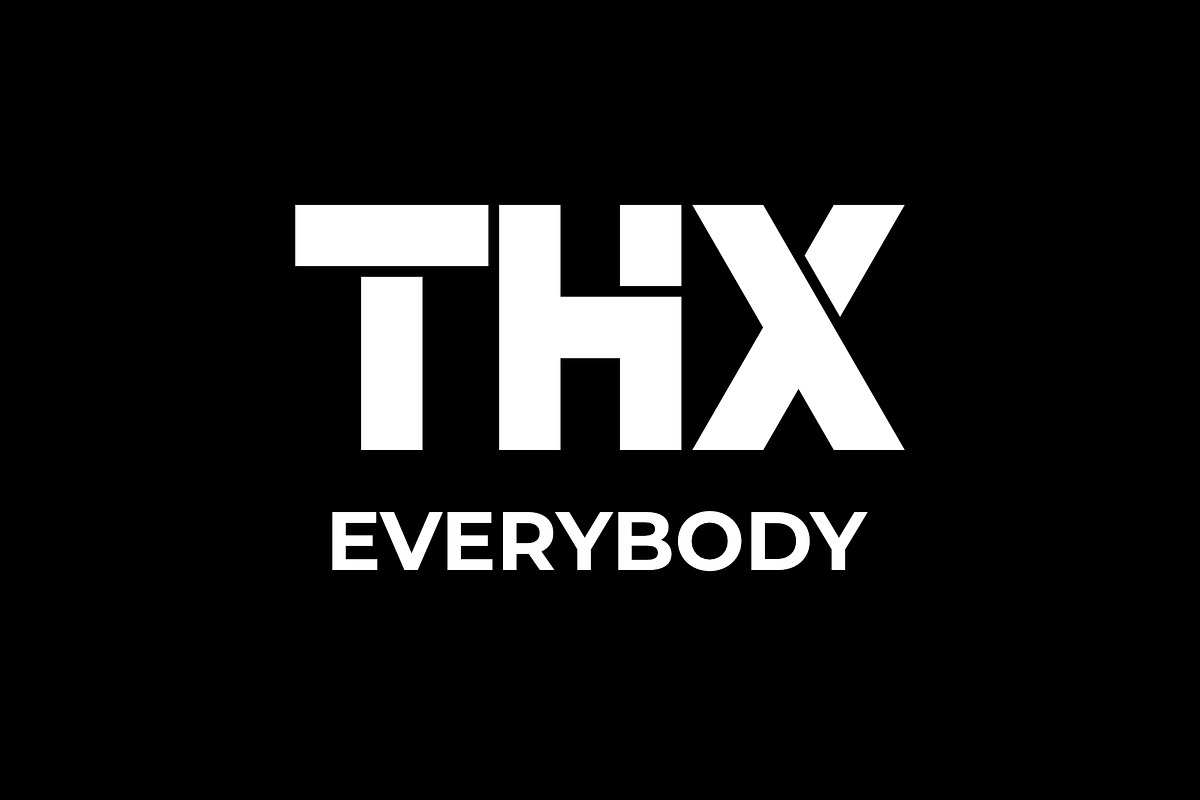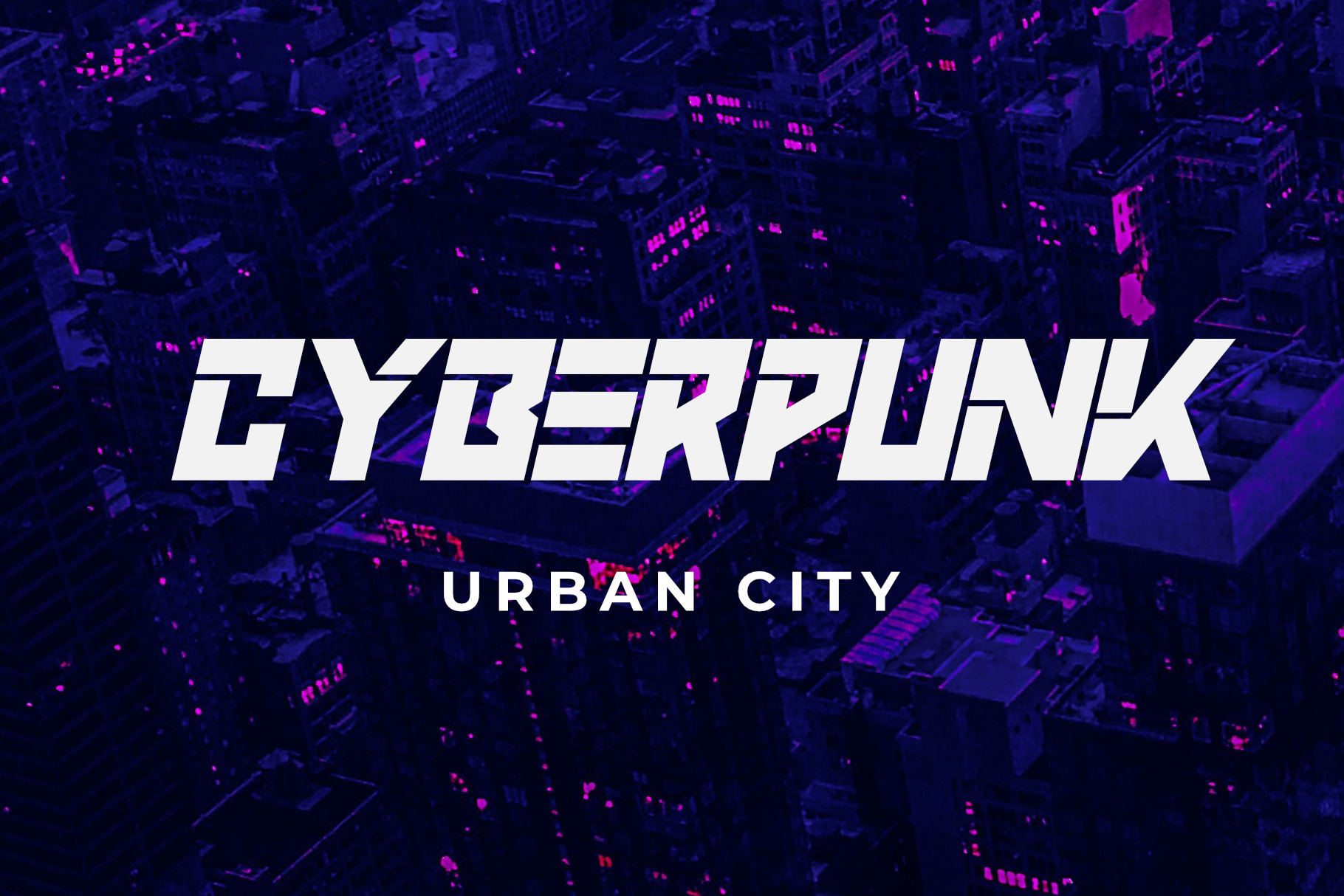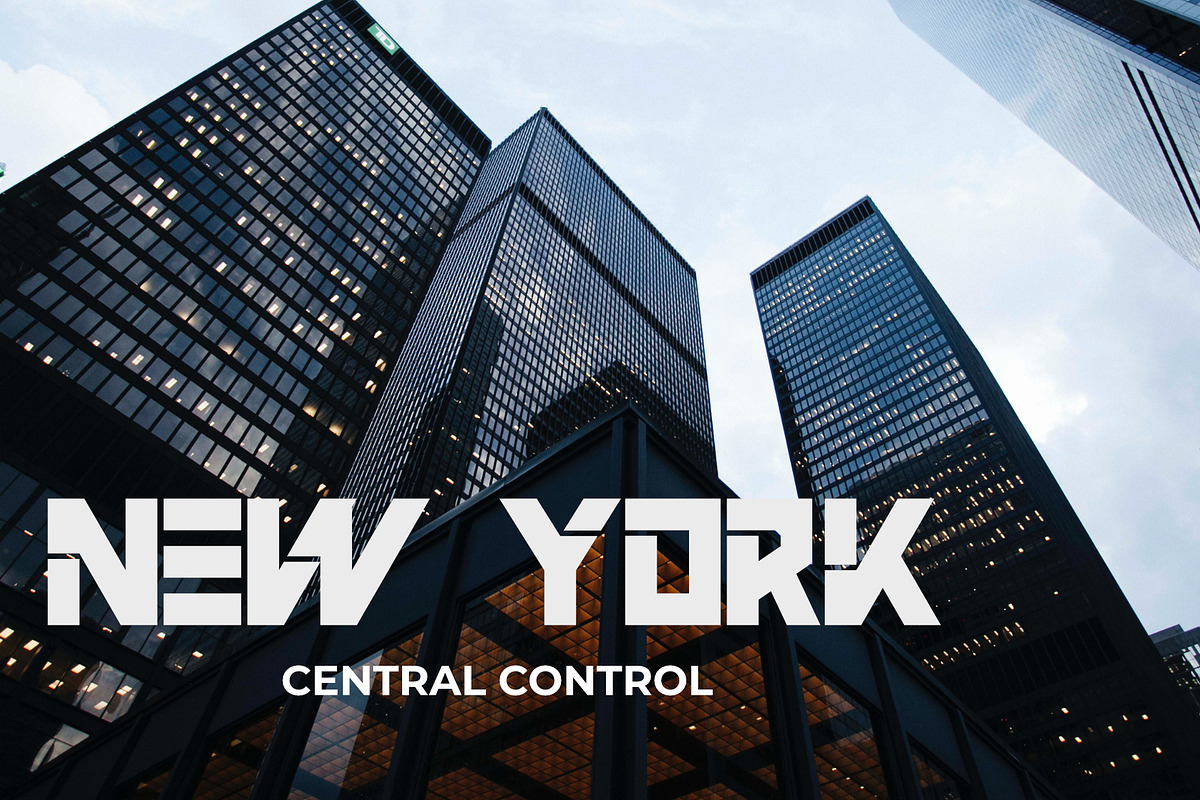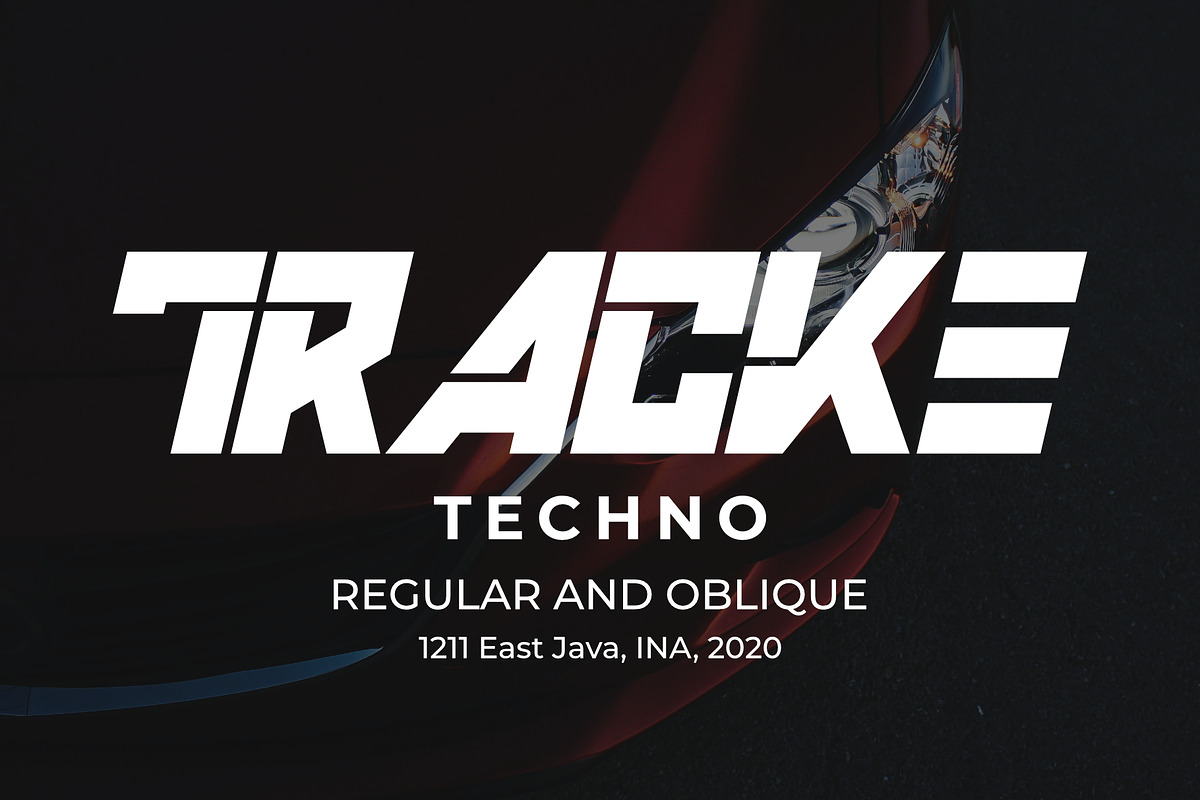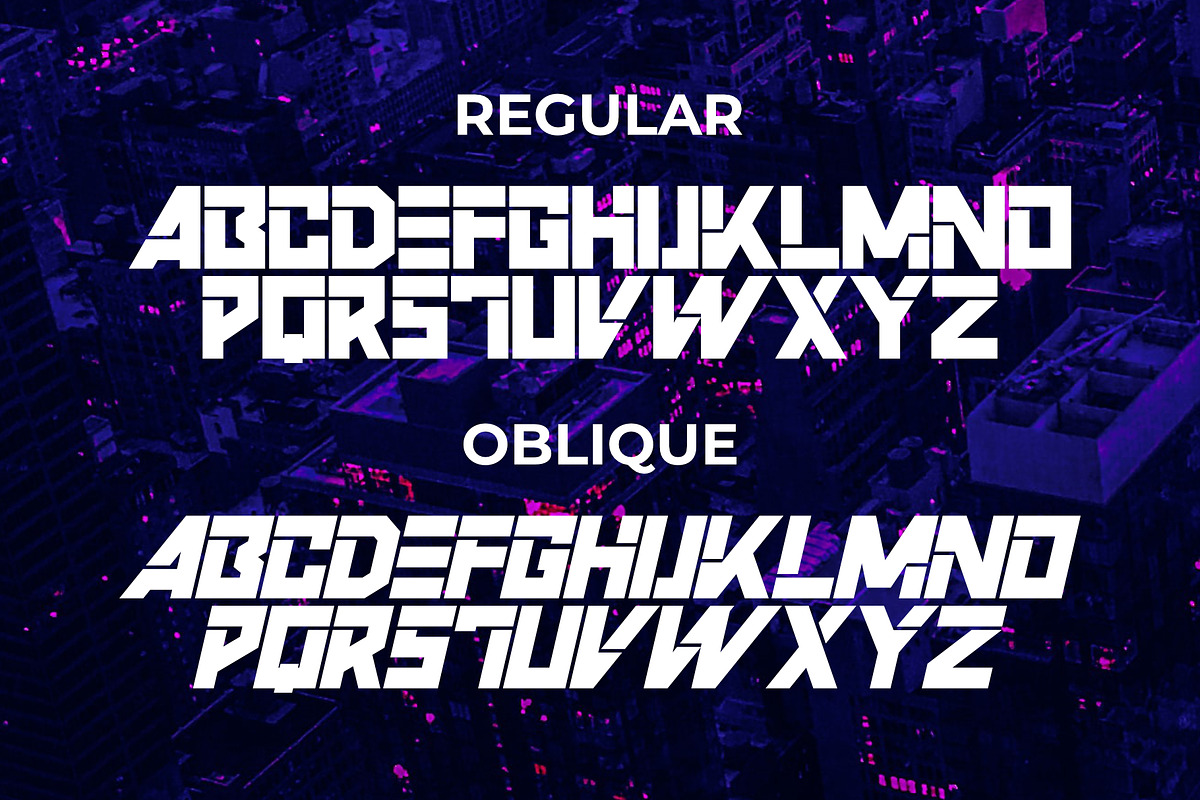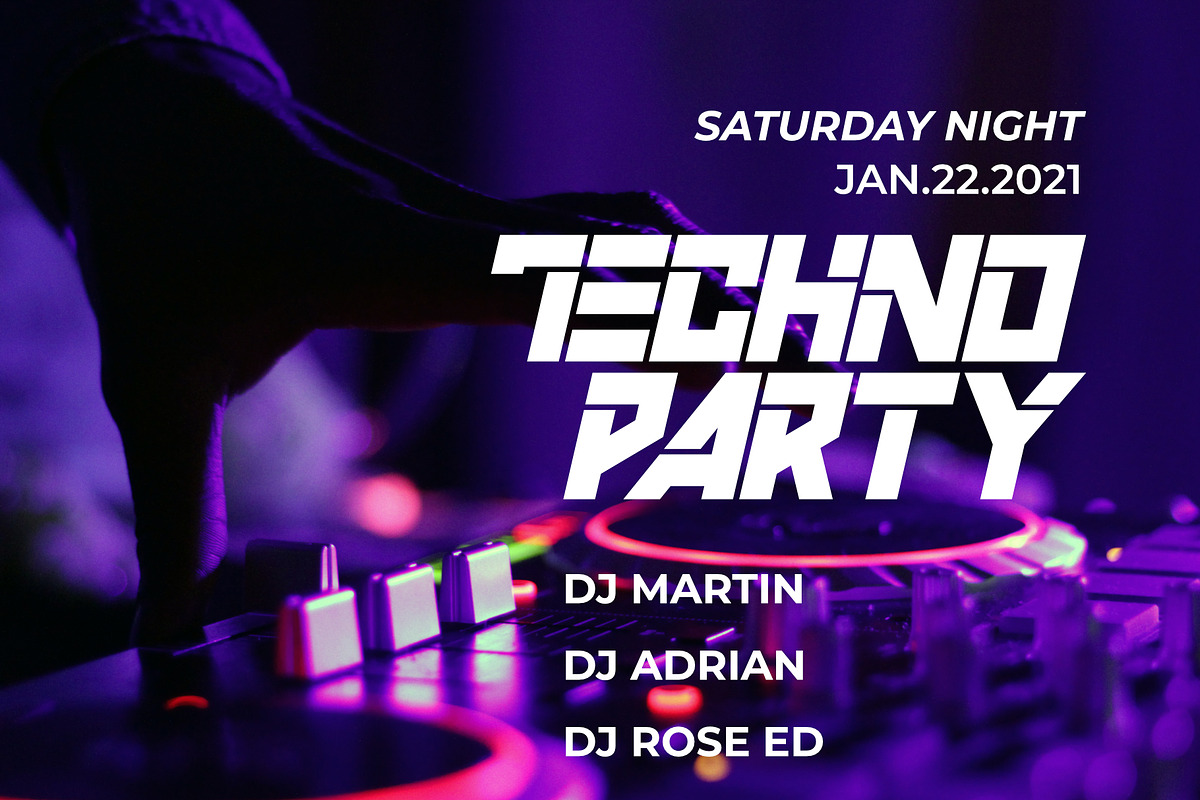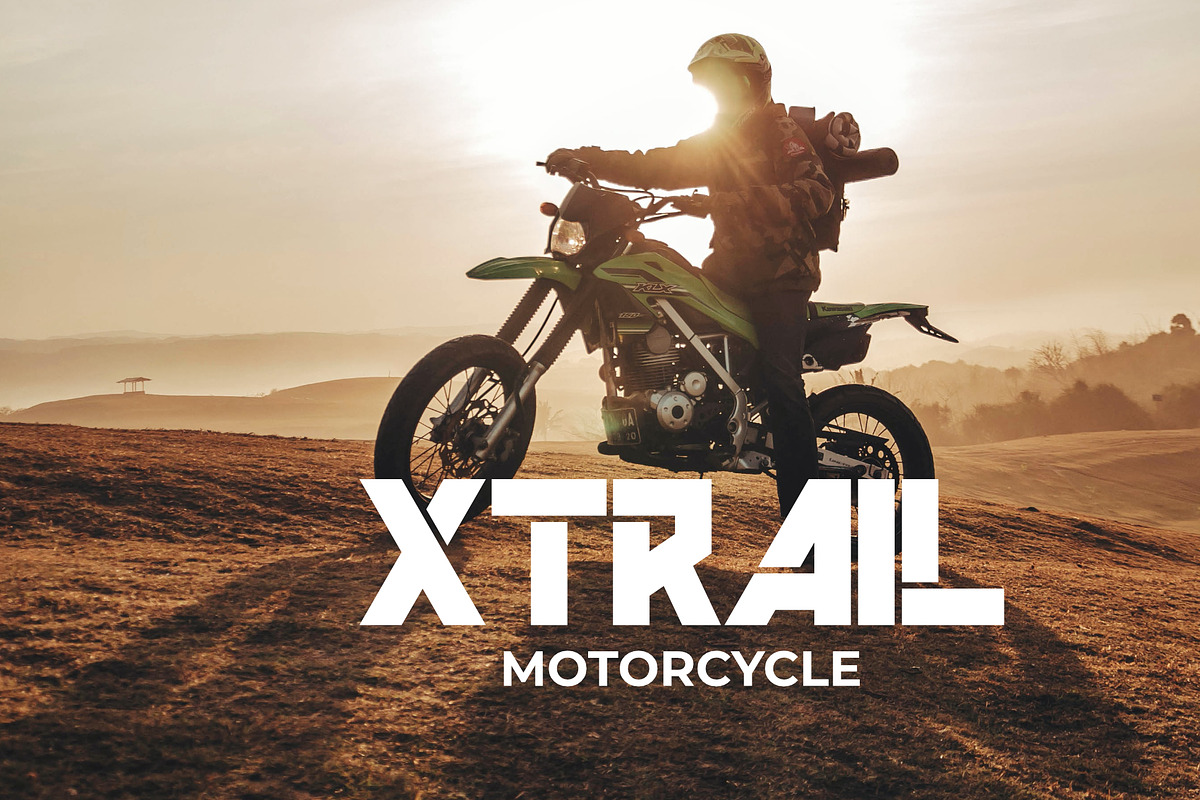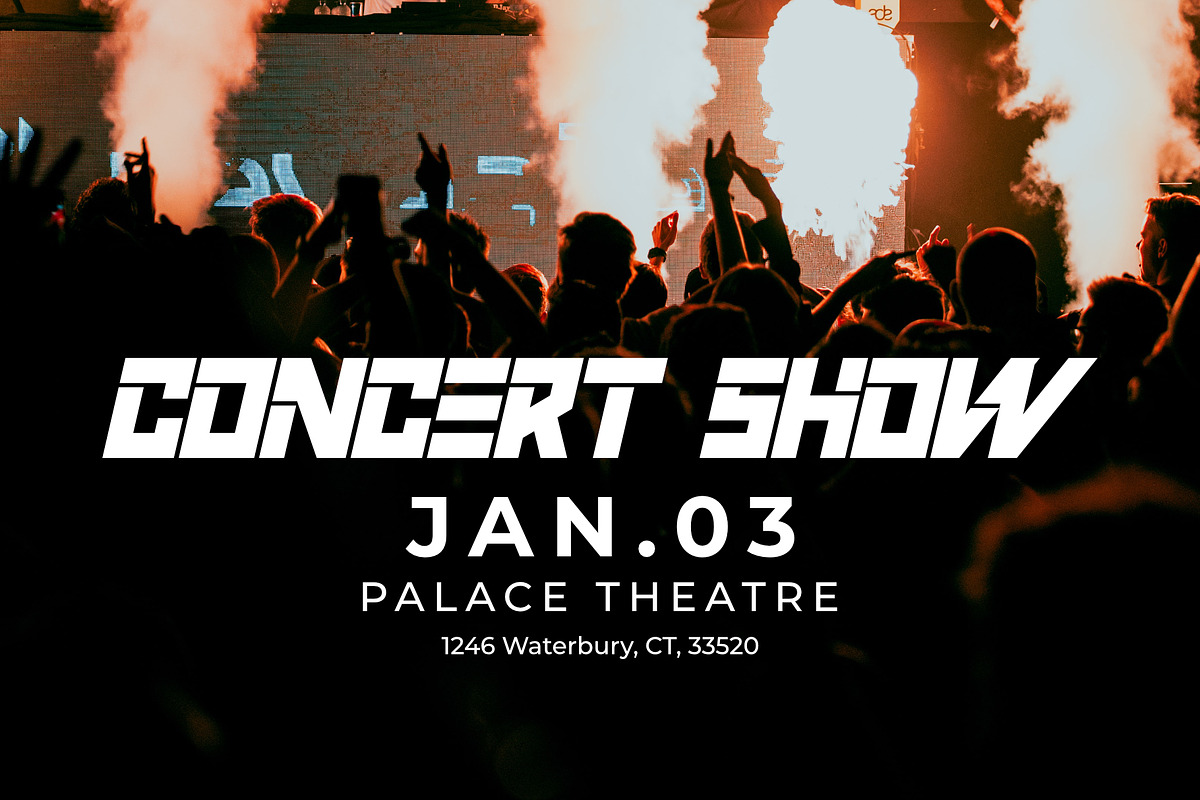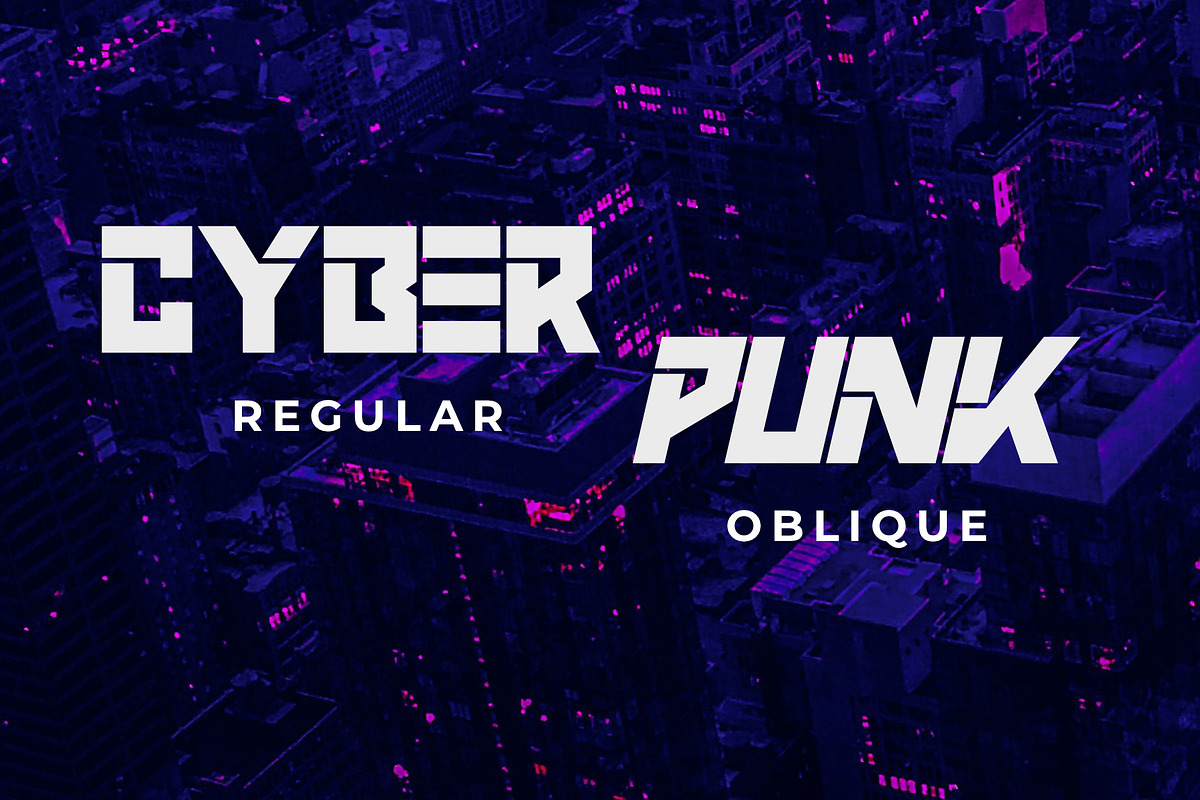
Sans Serif Fonts Bold Tracke
I introduce my newest font, namely Tracke sans serif fonts bold, Tracke sans serif fonts bold is a type of basic sans serif fonts, also called sans serif body fonts because of its thick shape. If you’re a designer looking for an alternative sans serif font for your project, you can rely on my Tracke sans serif fonts bold. Sometimes the designers at the book printing shop look for it on Google by sans serif book fonts, whether it’s only used on the cover or as a paragraph heading if you are a brand designer, the keyword in a Google search: “sans serif font branding.
About sans serif fonts
Tracke is a type of sans serif font. Caps don’t have a lowercase. Even though it’s only caps, you can use it as a collection of your other fonts. Tracke is part of the best sans serif fonts I have ever had, because it has been downloaded many times so far. Tracke Sans is fonts are examples of sans serif fonts which only has caps, Tracke font is also a type of common sans serif font because its shape is similar to other sans serif fonts. Tracke also has an aesthetic value for sans serif fonts because has a variety of alternates.
Tracke is good if it is included in the sans serif fonts list category, because it has a difference that can be felt. Uniquely, Tracke is also included in the category of best classy sans serif fonts because have logo taste and best sans serif fonts for body text because Tracke is easy to apply in many and includes the best sans serif fonts for logos, the type of logotype that several companies are currently rebranding.
If anyone asks are sans serif fonts easier to read? the answer is clearly easier to read, because this type of basic fonts.